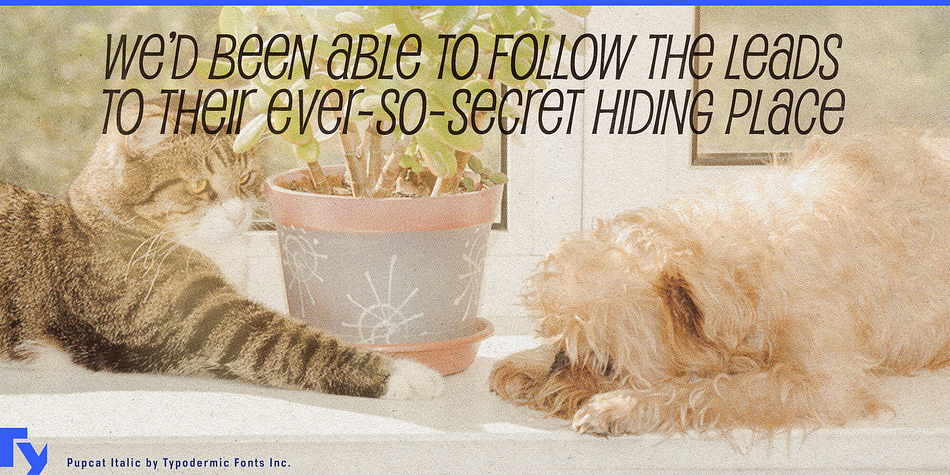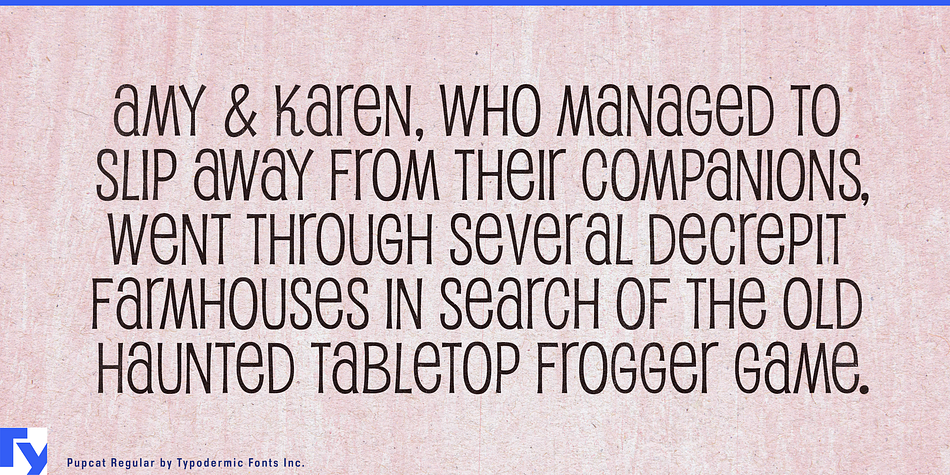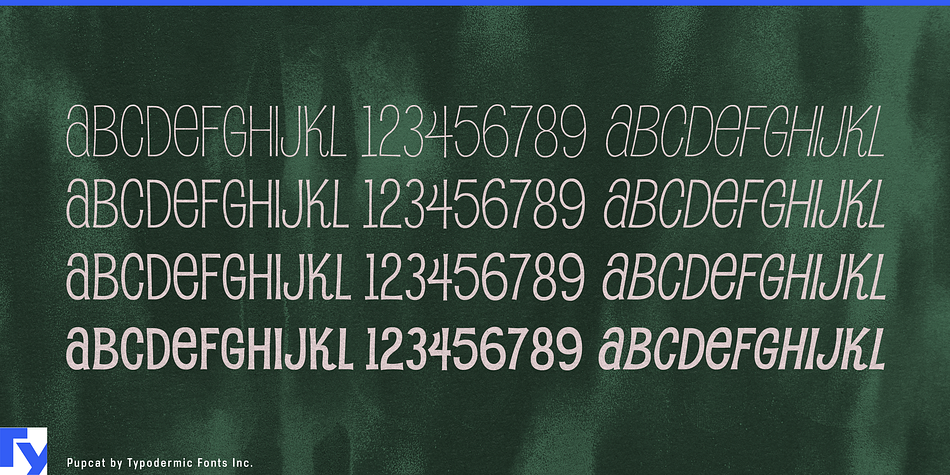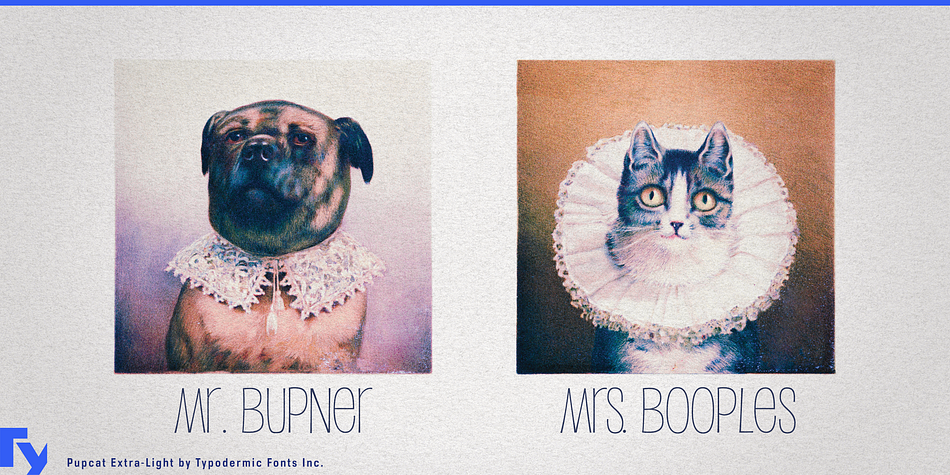
Pupcat is a display sans and kids font family. This typeface has eight styles and was published by Typodermic Fonts Inc.
Pupcat was inspired by posters from 1960s Hollywood comedies. It’s cute, narrow and lives for fun. Dig the OpenType features: an alternate A, E and R, fractions, ordinals & math symbols.